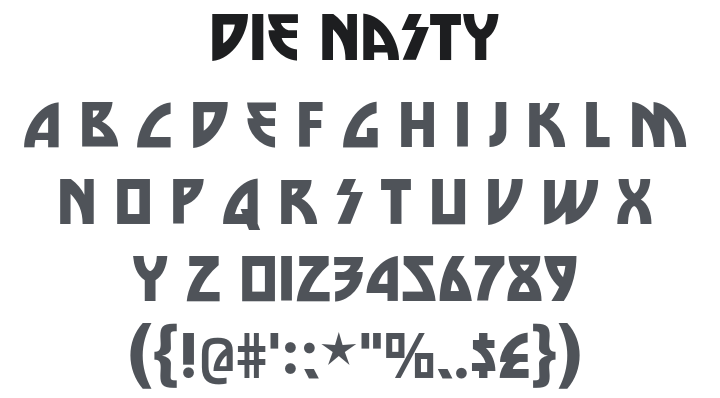
Die Nasty Font
About Die Nasty
Die Nasty is a glitzy Arts & Crafts headline typeface with unmistakable glam rock DNA — inspired by the KISS band logo insignia, its sharp, angular letterforms feel like they belong on a stadium banner or a 1970s hard rock album cover. Smart OpenType variants automatically swap letter forms for A, M, V, and W. Perfect for rock band branding, metal-themed posters, edgy fashion headlines, and bold entertainment graphics.